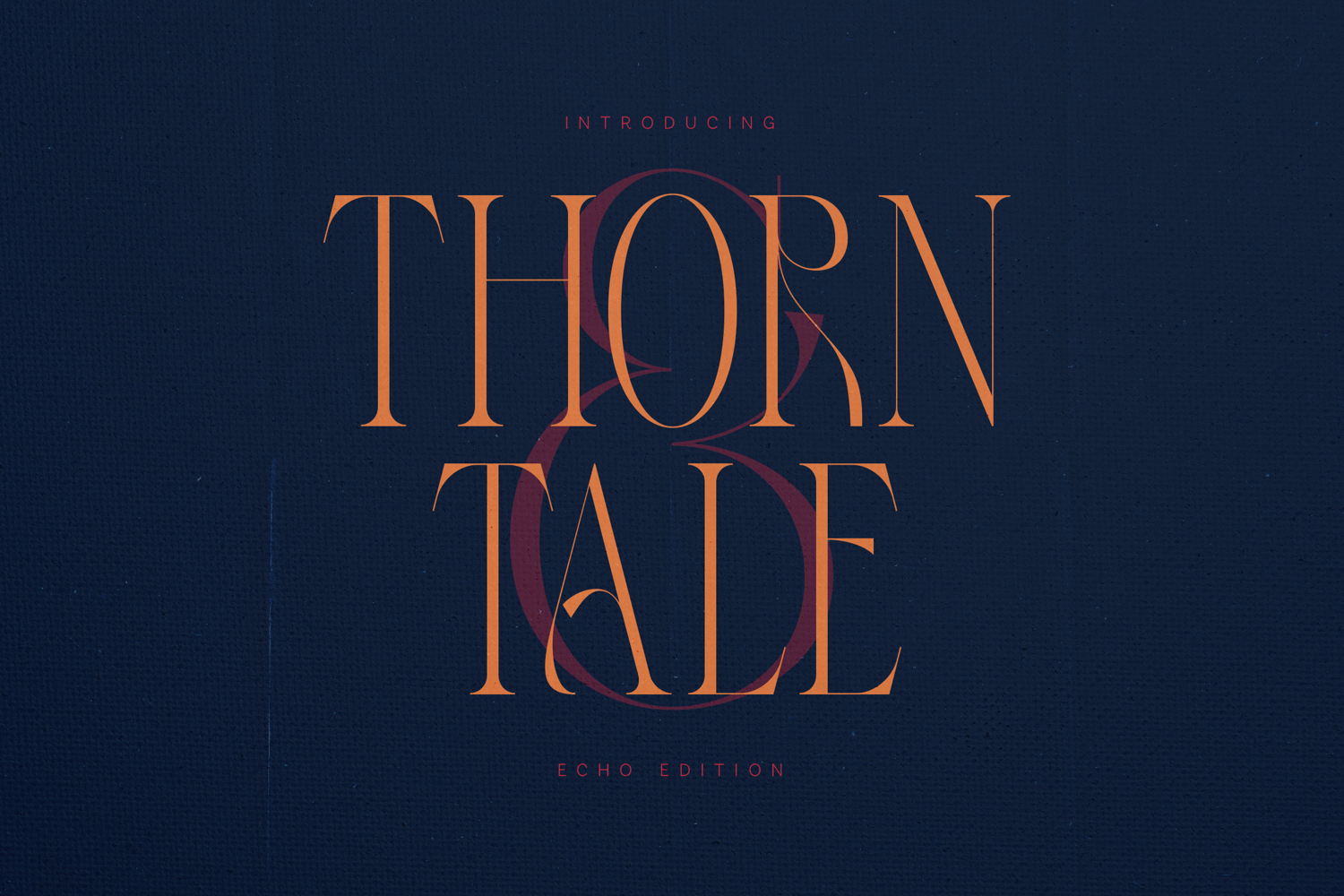
Thorn Tale Echo Edition Luxury Modern Serif Font
Thorn Tale is a refined modern serif display font designed with sharp elegance and dramatic contrast.
Featuring delicate high-contrast strokes, sculpted curves, and subtle ornamental cuts, this typeface blends classic serif sophistication with contemporary fashion aesthetics. The Echo Edition introduces layered depth and refined detailing, giving your typography a cinematic, premium presence.
Perfect for luxury branding, editorial design, high-end packaging, beauty campaigns, fashion magazines, wedding stationery, and statement logos.
Thorn Tale delivers elegance without excess — expressive yet controlled, decorative yet highly usable.
Perfect for:• Luxury branding
• Fashion editorials
• Beauty packaging
• Logo design
• Magazine headlines
• Wedding invitations
• Album artwork
• Premium social media visuals
• Boutique branding
Elegant. Dramatic. Timeless.